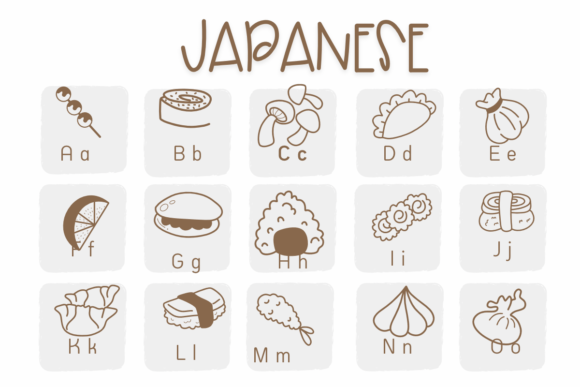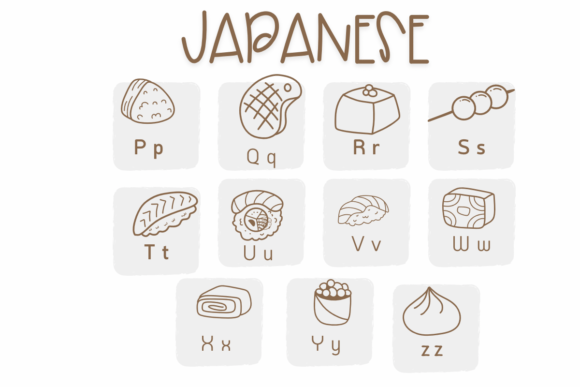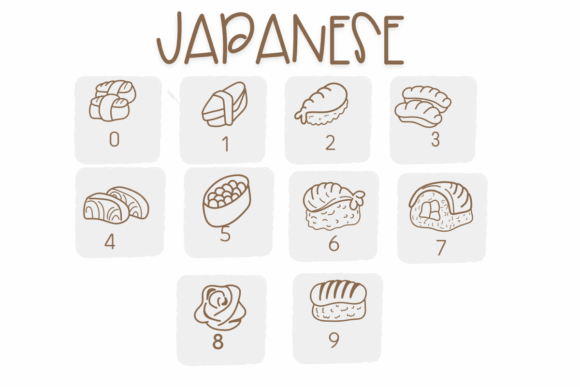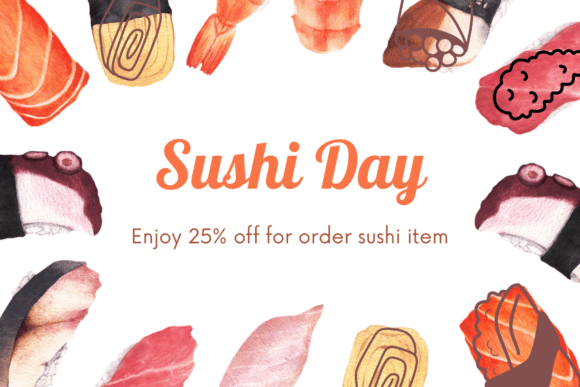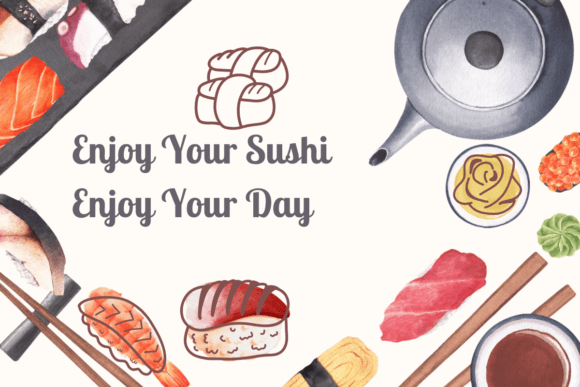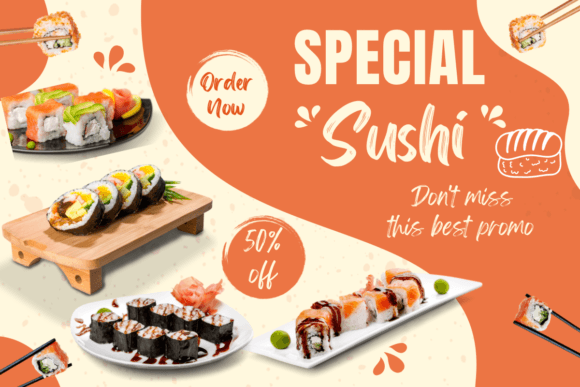
Introduction to Japanese Food Font
Do you remember the moment when you stumbled upon the perfect font for your next creative project? The one that makes your design pop and leaves a lasting impression on your audience? For designers and crafty enthusiasts, finding the right font can be a game-changer. Today, we’re excited to introduce you to a delightful addition to your design resource arsenal: the Japanese Food Font.
This charming dingbats font is a treat for the eyes, featuring a mouth-watering theme that’s sure to tantalize your taste buds. With its high-quality design and transparent background, Japanese Food Font is perfect for enhancing your creative projects, from wedding invitations to DIY crafts and decorations. And the best part? It’s available for free download, making it an invaluable resource for designers and crafty enthusiasts alike.
Key Features of Japanese Food Font
- High-quality design resource perfect for a creative project, ideal for food bloggers, chefs, or anyone looking to add a touch of Japanese culture to their branding.
- Unique and authentic design inspired by traditional Japanese cuisine, making it a standout choice for any design project.
- Transparent background, allowing for seamless integration into any design, whether it’s a website, social media, or print material.
- Designed to be versatile, the Japanese Food Font can be used for a variety of applications, from restaurant menus to food packaging, and even social media graphics.
Honest Review: Japanese Food Font
I recently had the chance to work with Japanese Food Font, a free download design resource that promised a unique twist on traditional fonts. Overall, I was impressed with the quality of the font.
- ✨ Unique and creative approach to typography, blending traditional Japanese characters with modern font styles
- ✨ High-quality vector graphics, suitable for both digital and print projects
- ✨ Transparent background, allowing for seamless integration with various design elements
- ⚠️ Limited character set, which may not be ideal for longer texts or complex projects
- ⚠️ Some characters may not display correctly on all platforms or devices
Overall, I’d recommend Japanese Food Font for creative projects that require a distinctive and eye-catching design. While it may not be perfect for every use case, it’s a great resource for designers looking to add a unique touch to their work.
Japanese Food Font
Use the Japanese Food Font in combination with other design elements, such as images or graphics, to create a visually appealing design. Experiment with different font sizes and styles to add depth and interest to your design.
The Japanese Food Font is perfect for designing menus, food blogs, and other creative projects that require a touch of Japanese flair. It’s also great for adding a cultural twist to your presentations or documents.